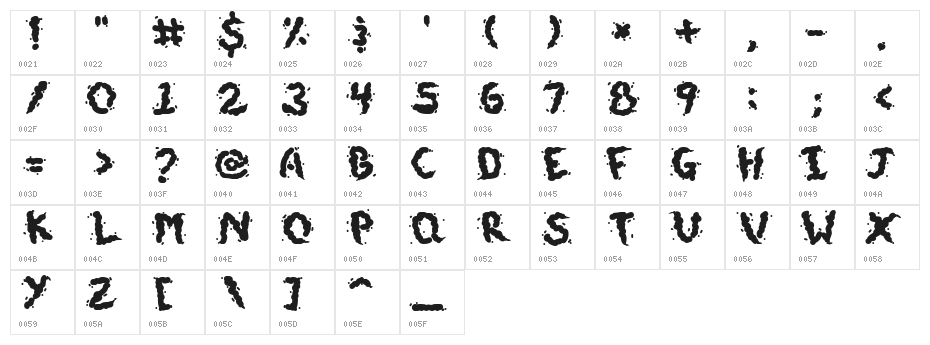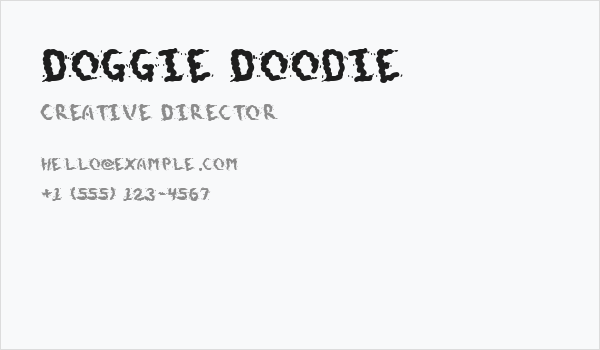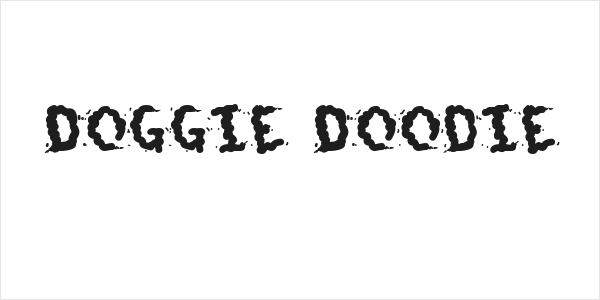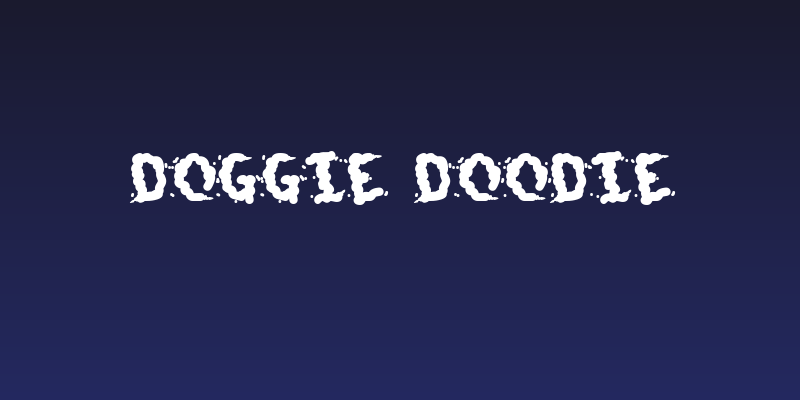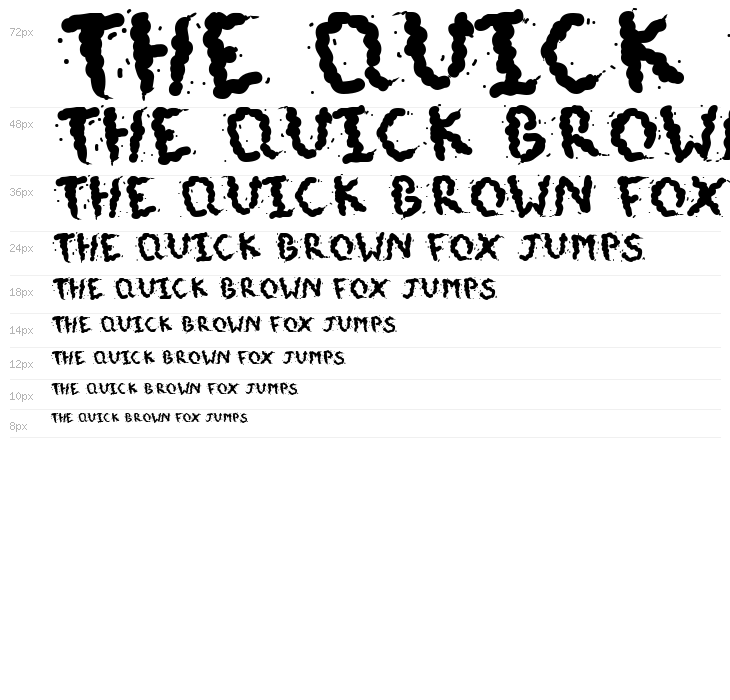
Doggie Doodie Font
Doggie Doodie Description
This playful and whimsical font features a unique design that mimics the appearance of splattered ink or paint. Each character is crafted with irregular edges and varying thickness, giving it a lively and dynamic feel. The font maintains a consistent baseline, ensuring readability while still embracing its quirky style. The uppercase and lowercase letters are distinct yet harmonious, and the numbers and special characters follow the same creative theme. This font is perfect for projects that require a fun and informal touch, such as children's books, playful branding, or artistic posters.
| Overall Style | Playful, Artistic |
| Proposed Projects | Ideal for children's books, playful branding, artistic posters, and creative invitations. |